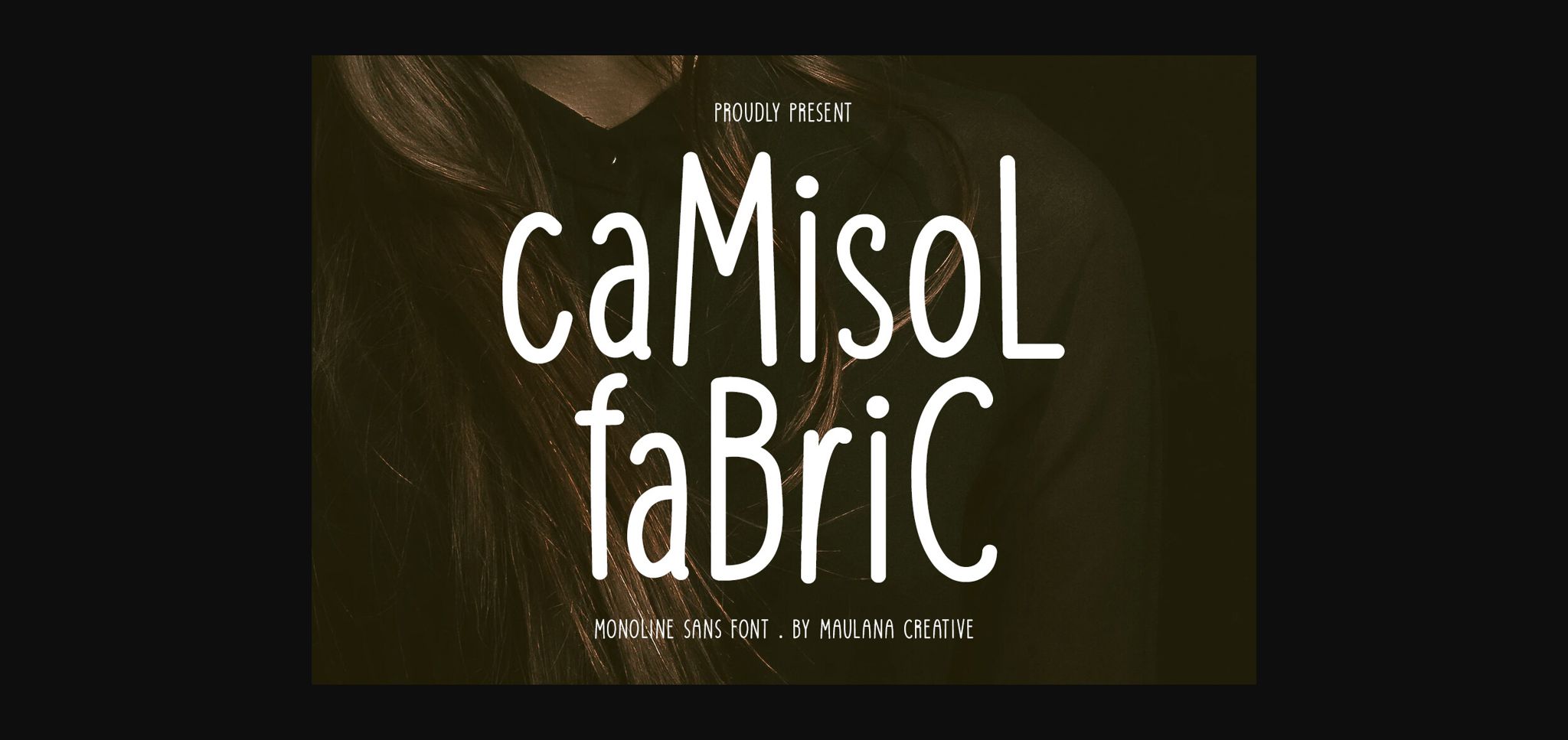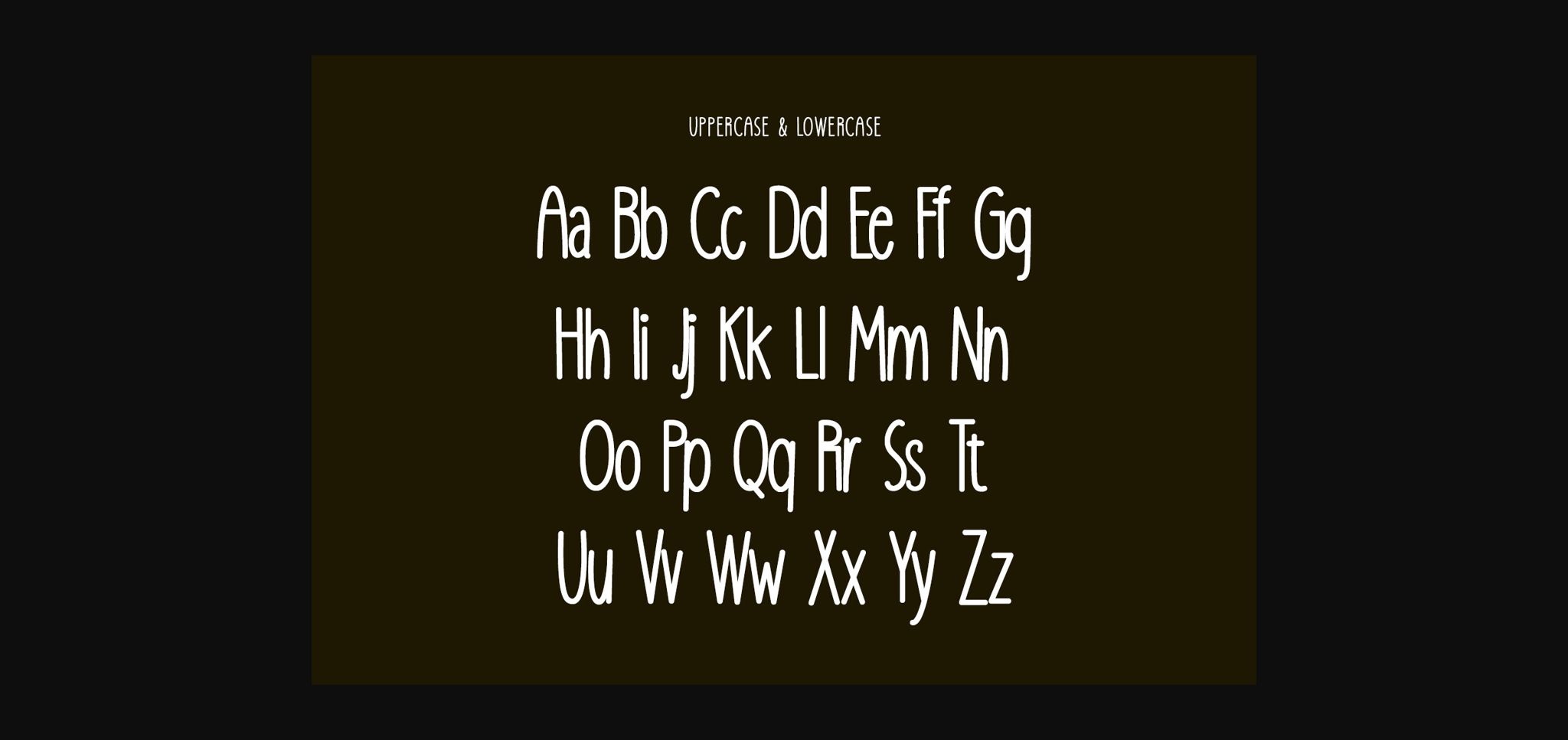
About Camisol Fabric Font
Camisol Fabric is a sweet and friendly sans serif font. Its natural and unique
style makes it incredibly fitting to a large pool of designs. The only limit is
your imagination!